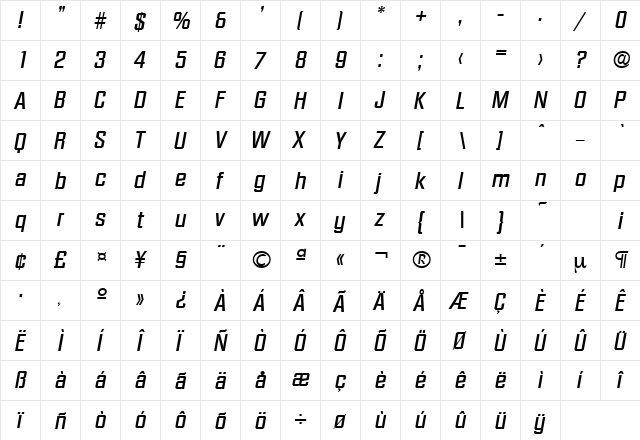
Diamante-Serial-Medium RegularItalic
Design Context for Diamante-Serial-Medium Typeface
Diamante-Serial-Medium offers clean, dependable letterforms without strong stylistic allegiance, making it a practical choice for designers who need flexibility. The slanted form adds forward momentum and visual energy.
Pro Tip: Try Diamante-Serial-Medium for annotation and caption copy alongside an upright companion — the contrast in angle creates a dynamic but ordered typographic system.